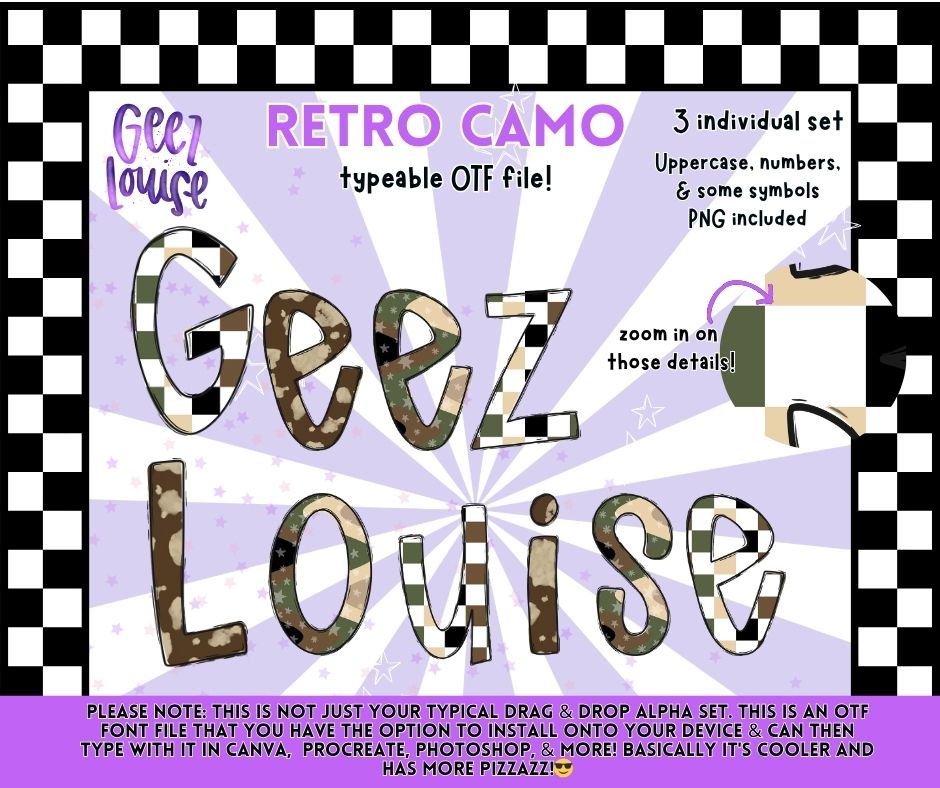
Retro Camo OTF Font + PNG Alpha Set | Typeable Camo Font | Uppercase, Numbers & Symbols
Neutral but still making a statement 🌿🔥
This Retro Camo OTF alpha set is a fully typeable font file plus PNG versions, giving you the best of both worlds. With a mix of camo prints and subtle patterns, this set is perfect for everyday designs that still stand out.